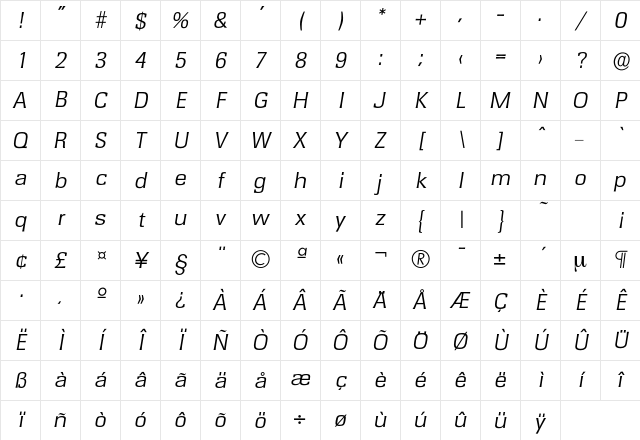
Rochester-LightIta Regular
Design Context for Rochester-LightIta
Rochester-LightIta is a composed and adaptable typeface that performs quietly and consistently across a wide range of design contexts. Its slender proportions lend an understated elegance to any composition.